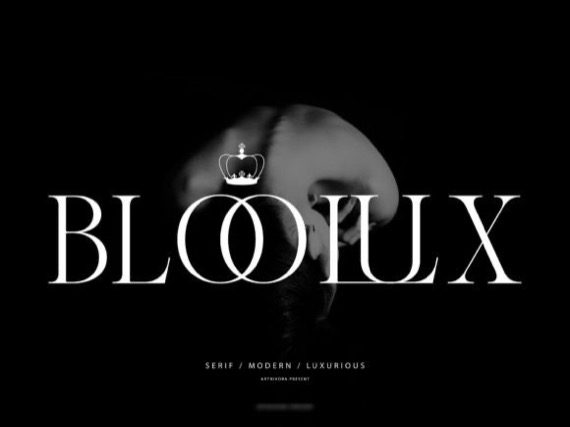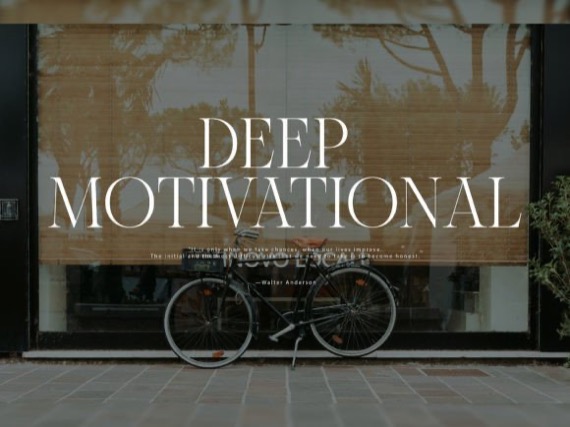
Bloolux is an elegant and casual serif font that was created and shared by Artnivora.std. So perfect for you who needs a typeface for logo designs, magazine, social media, brochure, and many more.
Bloolux Serif Font